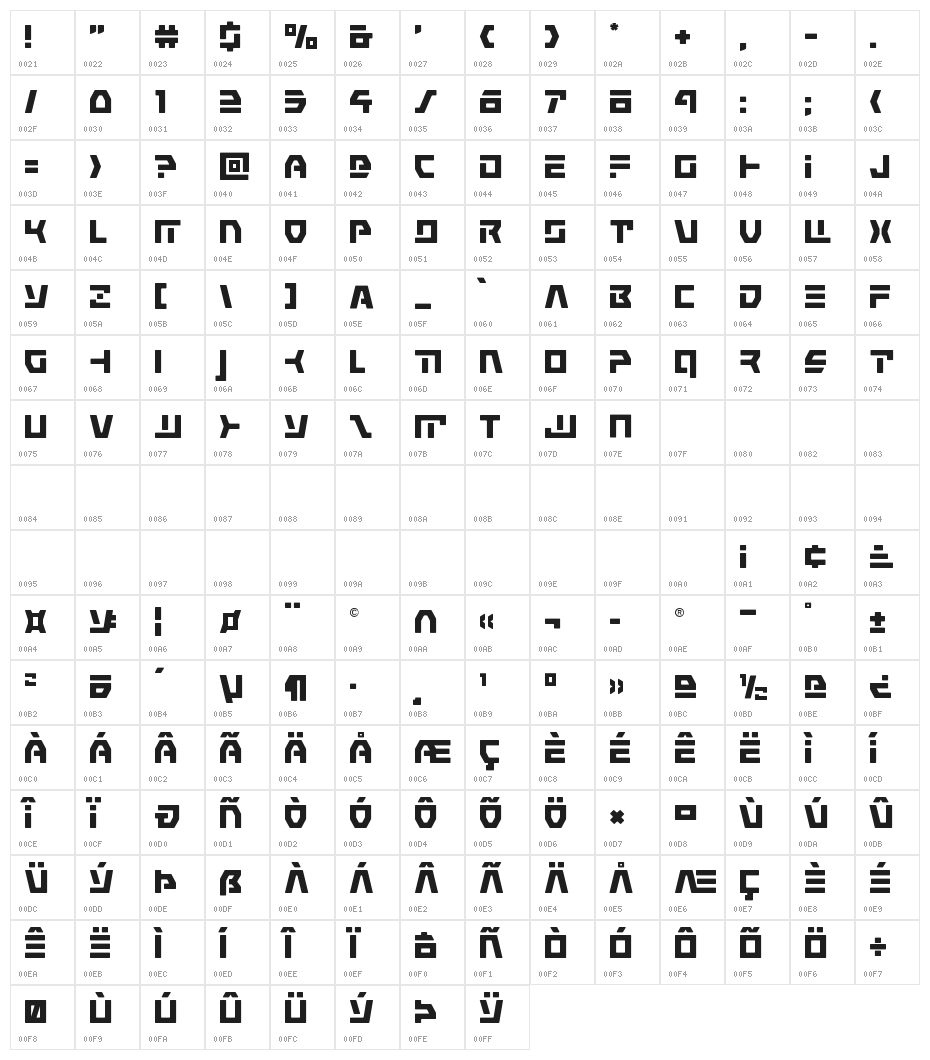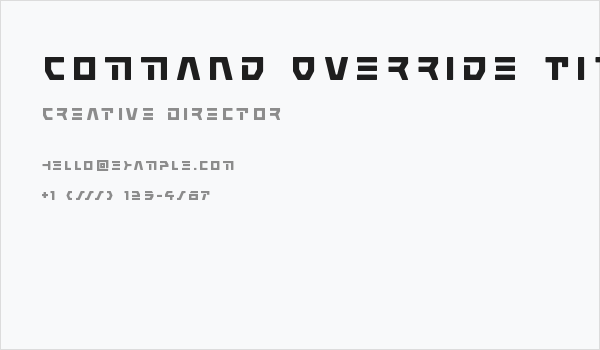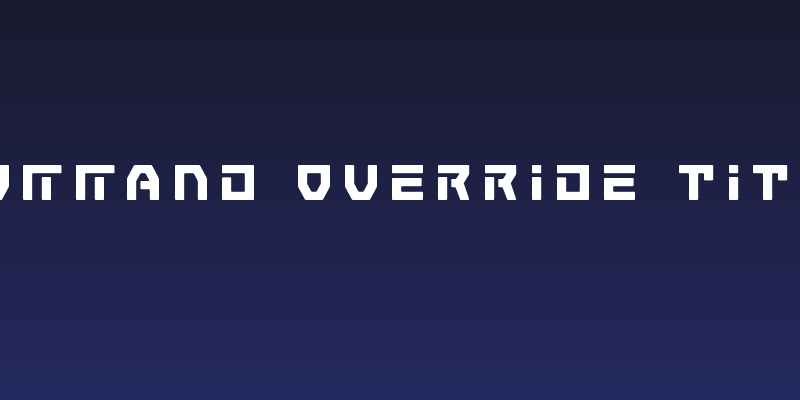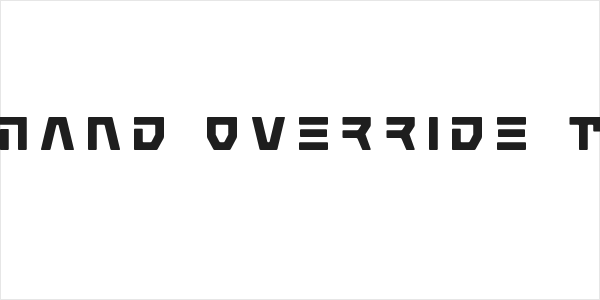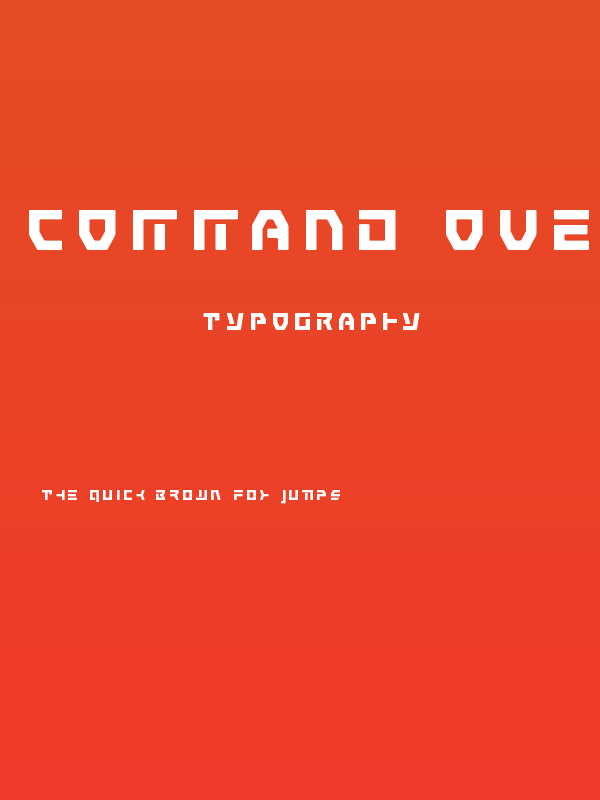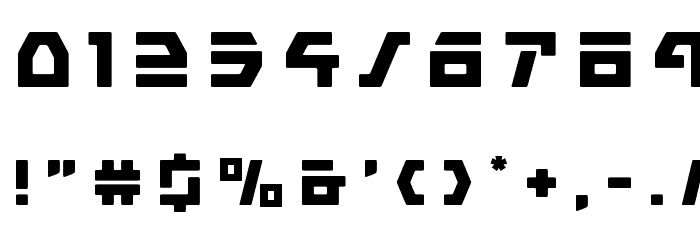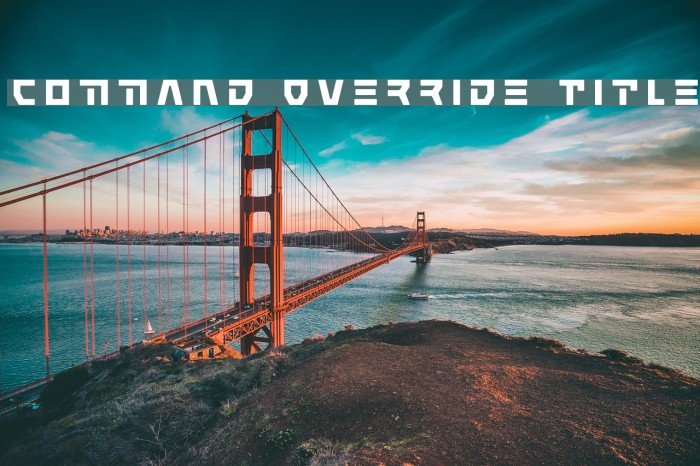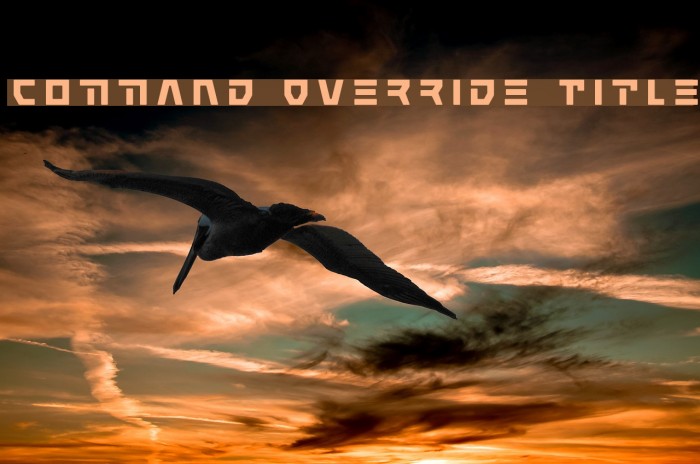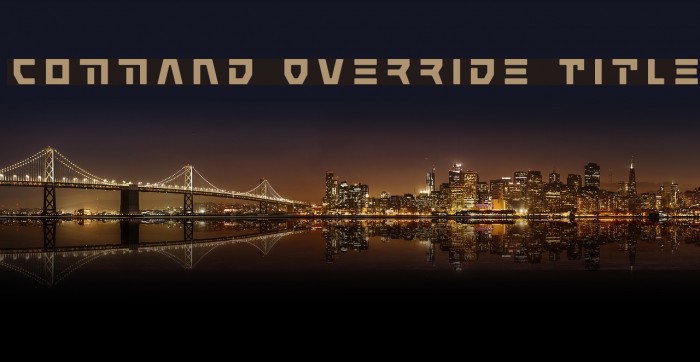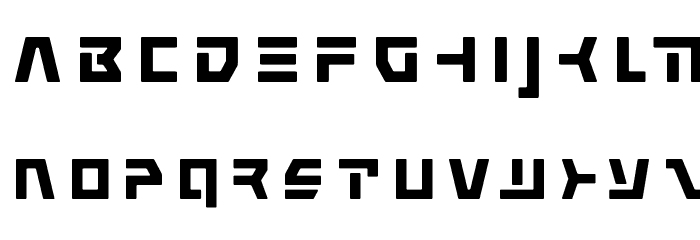
Command Override Title Font
Command Override Title Description
This font features a bold, geometric design with a futuristic and digital aesthetic. The characters are constructed with sharp angles and straight lines, creating a sense of precision and modernity. The uppercase and lowercase letters maintain a consistent style, with a strong emphasis on horizontal and vertical strokes. Numbers and special characters are designed to match the angular and blocky appearance of the alphabet, ensuring uniformity across all glyphs. The overall look is reminiscent of digital displays or sci-fi themes, making it suitable for projects that require a tech-savvy or avant-garde feel.
| Proposed Projects | Ideal for technology branding, sci-fi movie posters, video game titles, and digital interfaces. |